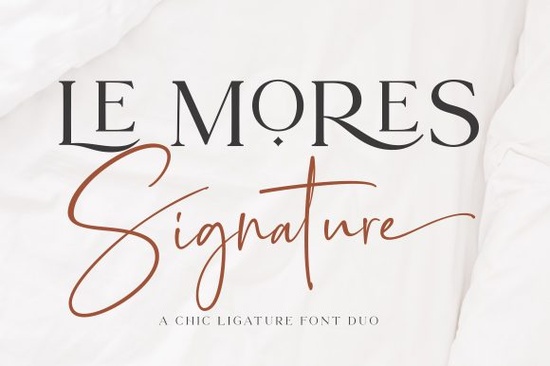
If you’re looking for a font that feels both polished and personal, Le Mores Signature Font might be exactly what your next project needs. It’s a duo font one part serif, one part script designed to give your work that refined, hand-crafted touch without losing legibility or structure. Whether you’re designing wedding invitations, branding materials, or printable wall art, this font brings balance: the script adds movement and elegance, while the serif keeps things grounded and professional.
What makes it especially useful is its PUA encoding. That means all those lovely swashes, alternate characters, and ligatures are easy to access no digging through glyph panels or installing extra files. Just type, and the magic happens right in your design software. If you’ve ever struggled with fonts that look great in previews but feel clunky to use, this one removes that friction.
Who should consider using Le Mores Signature?
It’s ideal if you’re:
- A small business owner creating custom packaging or social media graphics
- A crafter making personalized gifts or vinyl decals
- A print-on-demand seller building mockups for Etsy or Shopify
- A hobbyist who enjoys lettering but doesn’t want to hand-draw every detail
The script version flows beautifully for quotes, names, or headlines, while the serif works perfectly for supporting text think product descriptions, captions, or body copy. Together, they create contrast without clashing.
How does it compare to other signature-style fonts?
If you’ve tried fonts like Preppy Writing or Lim Siendra, you’ll notice Le Mores leans slightly more formal less bouncy, more poised. It’s not trying to mimic casual handwriting; instead, it evokes the feeling of engraved stationery or boutique branding. For something with similar grace but a softer curve, you might also like Beautica. And if you prefer bold, sweeping strokes, check out Something Gladdens or Masterline Calligraphy.
Each of these has its own personality, but Le Mores stands out when you need sophistication without stiffness. It’s versatile enough for both feminine and masculine projects try pairing it with minimalist layouts or textured backgrounds to let the letterforms shine.
What can you actually make with it?
Here are a few real-world uses we’ve seen designers love:
- Wedding suites invitations, menus, place cards, and thank-you notes
- Product labels candles, soaps, skincare, or gourmet food packaging
- Social templates Instagram quote posts, Pinterest pins, or YouTube thumbnails
- Wall art and prints framed quotes, nursery decor, or office motivation pieces
- Branding elements logos, watermarks, or email signatures for creative businesses
Because it includes both script and serif styles, you don’t need to pair it with another font unless you want to. That saves time and keeps your design cohesive.
Any tips for getting the most out of this font?
A few small tweaks can make a big difference:
- Use tracking (letter spacing) sparingly the script was designed to flow naturally, so avoid stretching it too thin.
- Try uppercase for impact the caps in the script style have beautiful terminals that stand out in titles.
- Layer with simple sans-serifs if you do add a third font, pick something clean like Montserrat or Lato to avoid visual clutter.
- Play with scale the script looks stunning large, while the serif holds up even at small sizes.
And because it’s PUA encoded, don’t forget to explore the stylistic alternates. Swapping out a single letter can completely change the mood of a word perfect for personalizing names or avoiding repetitive shapes.
Is it worth the download?
If you value fonts that are both beautiful and functional, yes. It’s not just another pretty script it’s built for real use. You won’t waste time troubleshooting missing characters or mismatched weights. Plus, Creative Fabrica’s licensing lets you use it commercially, which matters if you’re selling your designs.
Whether you’re updating your shop’s branding or just experimenting with new tools, Le Mores Signature gives you room to be expressive without overcomplicating your workflow.
Start small. Pick one project maybe a greeting card or an Instagram story and let the font guide your layout. You might be surprised how much character it adds with so little effort.